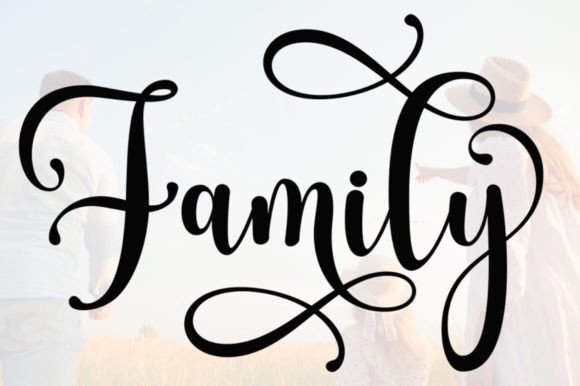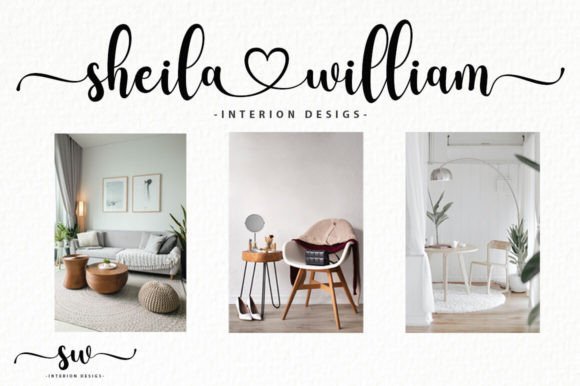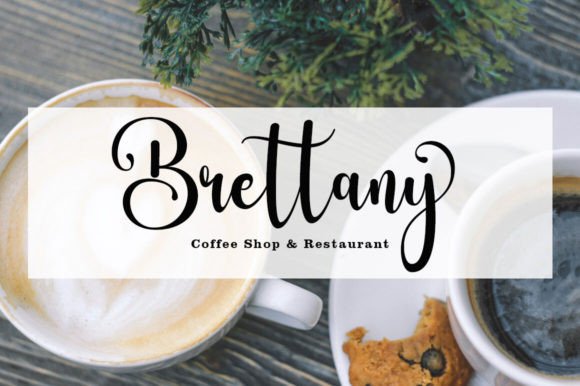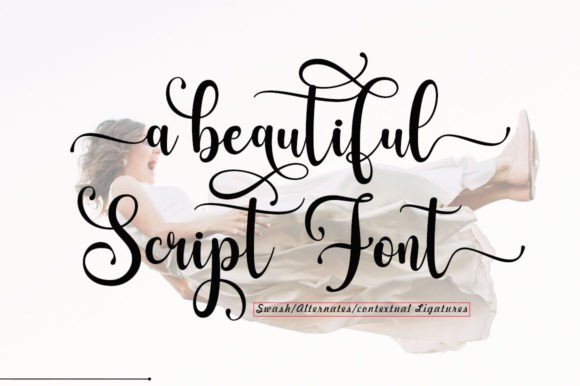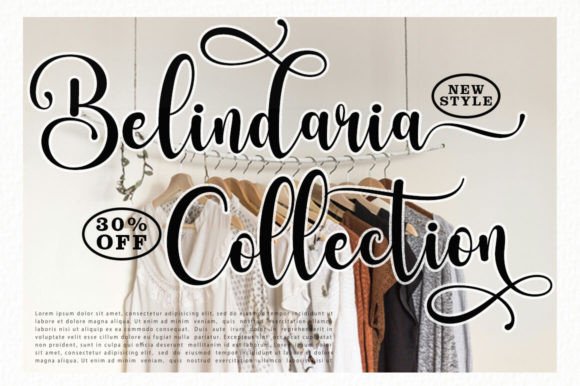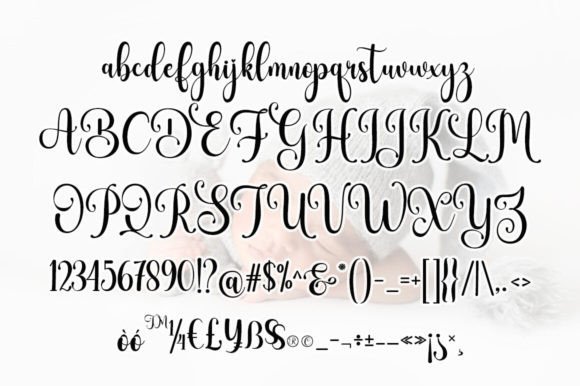
Baby Boho Font: The Ultimate Guide to this Modern Calligraphy Design
Are you a designer or crafter looking for a unique and beautiful font to elevate your creative projects? Look no further than the Baby Boho Font! This stunning modern calligraphy design is perfect for a wide range of applications, from logos and product packaging to wedding invitations and branding. In this article, we’ll dive into the world of Baby Boho Script, exploring its features, uses, and benefits.
What is Baby Boho Font?
Baby Boho Script is a modern calligraphy design that exudes a casual, yet elegant vibe. This beautiful font features swashes, making it perfect for adding a touch of sophistication to any design project. With its Regular style, Baby Boho Script is versatile and can be used for various purposes, including:
- Product packaging and labels
- Headlines and signage
- Book covers and posters
- Quotes and social media graphics
Key Features of Baby Boho Script
So, what makes Baby Boho Script so special? Here are some of its key features:
- Swashes: This font features beautiful swashes, adding a touch of elegance to any design.
- Casual yet Elegant: Baby Boho Script strikes the perfect balance between casual and elegant, making it suitable for a wide range of design projects.
Benefits of Using Baby Boho Font
So, why should you choose Baby Boho Script for your design projects? Here are some benefits:
- Unique and Eye-Catching: Baby Boho Script is a unique and eye-catching font that will set your designs apart from the rest.
- Versatile: This font can be used for a wide range of applications, from logos and branding to wedding invitations and book covers.
- Elegant and Sophisticated: Baby Boho Script adds a touch of elegance and sophistication to any design, making it perfect for high-end branding and marketing materials.
- Easy to Read: Despite its elegant style, Baby Boho Script is easy to read, making it perfect for body text and headlines.
Tips for Using Baby Boho Font
Here are some tips for getting the most out of Baby Boho Script:
- Experiment with Swashes: Don’t be afraid to experiment with the swashes in Baby Boho Script to add a touch of elegance to your designs.
- Pair with Other Fonts: Try pairing Baby Boho Script with other fonts to create a unique and eye-catching combination.
- Use for Headlines and Titles: Baby Boho Script is perfect for headlines and titles, adding a touch of elegance and sophistication to any design.
- Play with Colors: Don’t be afraid to play with different colors and textures to add depth and interest to your designs.
In conclusion, Baby Boho Script is a stunning modern calligraphy design that is perfect for designers and crafters looking to elevate their creative projects. With its unique features, versatility, and elegance, this font is sure to become a favorite in your design arsenal. Whether you’re looking to create a logo, wedding invitation, or book cover, Baby Boho Script is the perfect choice.